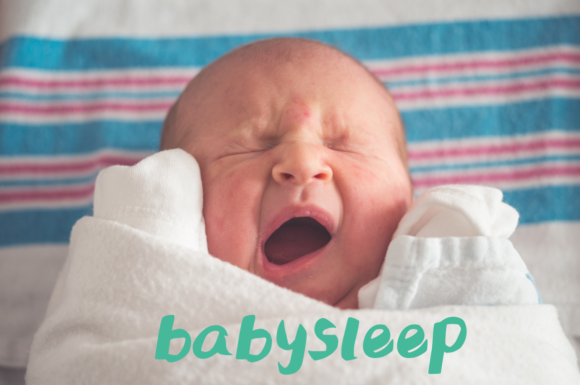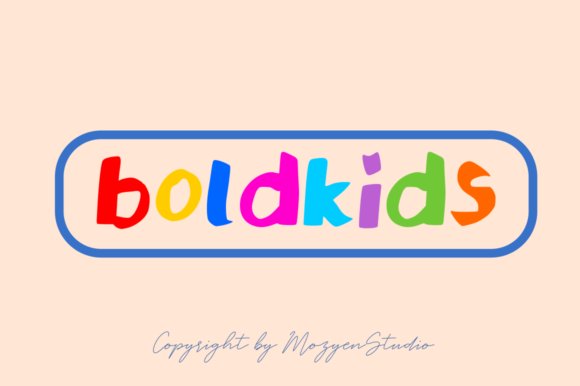
Introducing Boldkids Font: The Ultimate Choice for Whimsical and Fun Designs
Are you a designer or crafter looking for a font that can add a touch of playfulness and charm to your projects? Look no further than Boldkids Font! This whimsical and fun handwritten font is perfect for anyone who wants to create eye-catching and engaging designs that are sure to delight.
What is Boldkids Font?
Boldkids Font is a unique and creative typeface that is designed to bring a sense of fun and playfulness to any project. With its bold and chunky lettering, this font is perfect for headlines, titles, and any other text that needs to stand out. But what really sets Boldkids apart is its charming and whimsical feel, which makes it perfect for projects that require a touch of personality and flair.
Features of Boldkids Font
So, what makes Boldkids Font so special? Here are just a few of its key features:
- Whimsical and fun design: Boldkids Font has a playful and carefree design that is sure to add a touch of whimsy to any project.
- Handwritten feel: This font has a genuine handwritten feel that gives it a personal and relatable touch.
- Bold and chunky lettering: The bold and chunky lettering of Boldkids Font makes it perfect for headlines, titles, and any other text that needs to stand out.
- Easy to read: Despite its bold and playful design, Boldkids Font is still easy to read, making it perfect for use in a variety of projects.
- Versatile: Boldkids Font can be used in a wide range of projects, from crafts and DIY projects to digital designs and marketing materials.
Uses for Boldkids Font
So, what can you use Boldkids Font for? The possibilities are endless! Here are a few ideas to get you started:
- Crafts and DIY projects: Boldkids Font is perfect for use in crafts and DIY projects, such as scrapbooking, card making, and other paper crafts.
- Digital designs: This font can also be used in digital designs, such as social media graphics, blog posts, and other online content.
- Marketing materials: Boldkids Font can add a touch of personality and whimsy to marketing materials, such as brochures, flyers, and posters.
- Signs and displays: This font is also perfect for use in signs and displays, such as store signs, exhibit displays, and other promotional materials.
Tips for Using Boldkids Font
Here are a few tips for getting the most out of Boldkids Font:
- Use it sparingly: While Boldkids Font is playful and fun, it can be overwhelming if used too much. Use it sparingly to add a touch of personality to your designs.
- Pair it with other fonts: Boldkids Font can be paired with other fonts to create a unique and interesting design. Try pairing it with a simpler font for a bold and playful look.
- Experiment with colors: Boldkids Font looks great in a variety of colors, so don’t be afraid to experiment and find the perfect color for your design.
In conclusion, Boldkids Font is a unique and creative typeface that is perfect for designers and crafters who want to add a touch of whimsy and playfulness to their projects. With its bold and chunky lettering, charming and whimsical feel, and versatile design, this font is sure to delight. So why not give it a try and see how it can add a touch of personality and flair to your designs?
Whether you’re working on a craft project, designing marketing materials, or creating digital content, Boldkids Font is the perfect choice. So go ahead, get creative, and have fun with Boldkids Font!